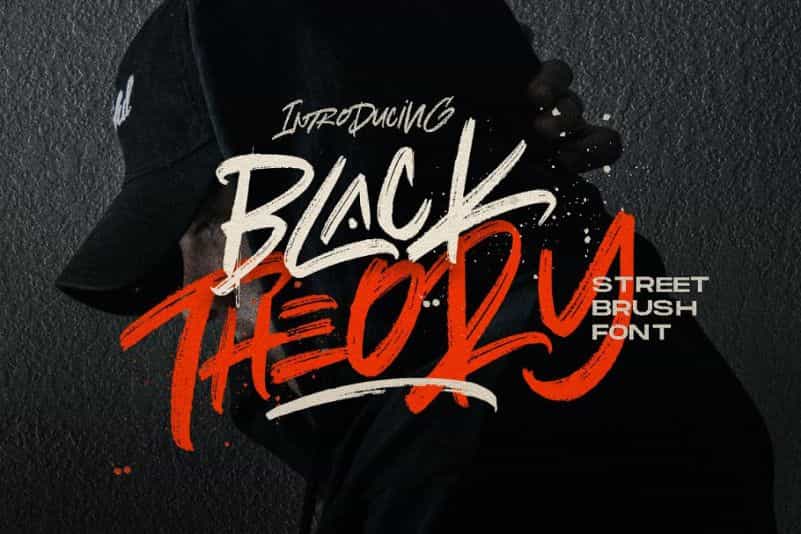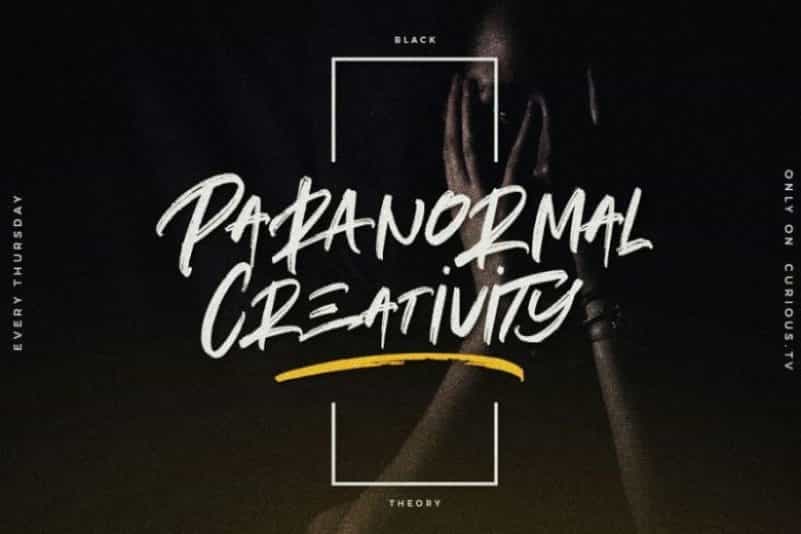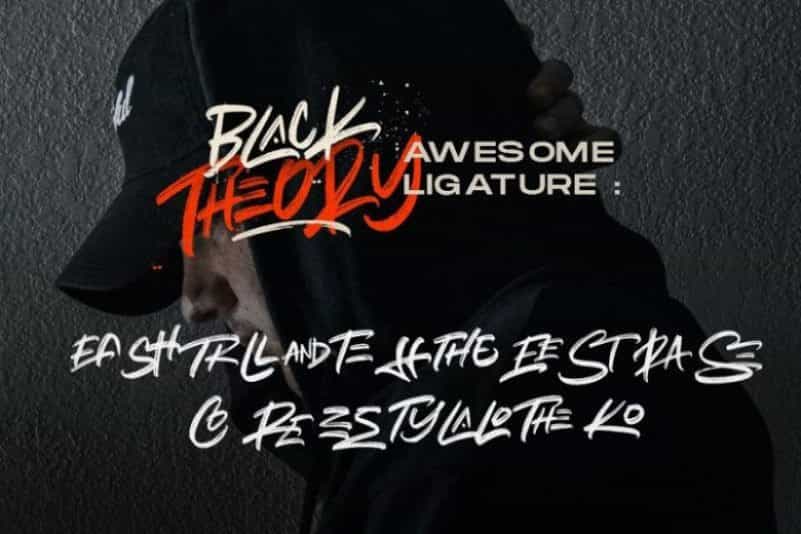
Discover Black Theory Urban Brush Font, part of the Commercial Brush collection—a versatile and unique font perfect for adding a personal touch to your projects. Download it for free and enjoy crafting designs with style, from invitations to social media posts. This font is available exclusively for personal use, giving you the freedom to create without limits. Unlock your creativity with Black Theory Urban Brush Font today!
Black Theory Font are designed using brushes and inks, which may be intermingled into the range of hard-themed types of designs. This font brush would be useful for designing horror, action and rock related themes. It’s designed and shared by Dirtyline Studio. Black Theory Urban Brush is a Stylist Brush font with a real wet brush appearance.